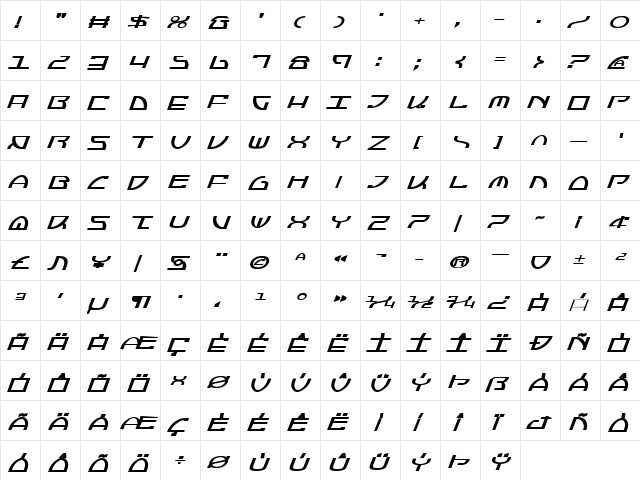
Jumptroops Italic Italic
Design Context for Jumptroops Italic Typeface
Jumptroops Italic is a composed and adaptable typeface that performs quietly and consistently across a wide range of design contexts. The dynamic lean of this cut emphasises speed and emphasis in any layout.
Pro Tip: Use Jumptroops Italic for emphasis, pull quotes, and subheadings where its slanted energy can add rhythm to the layout.